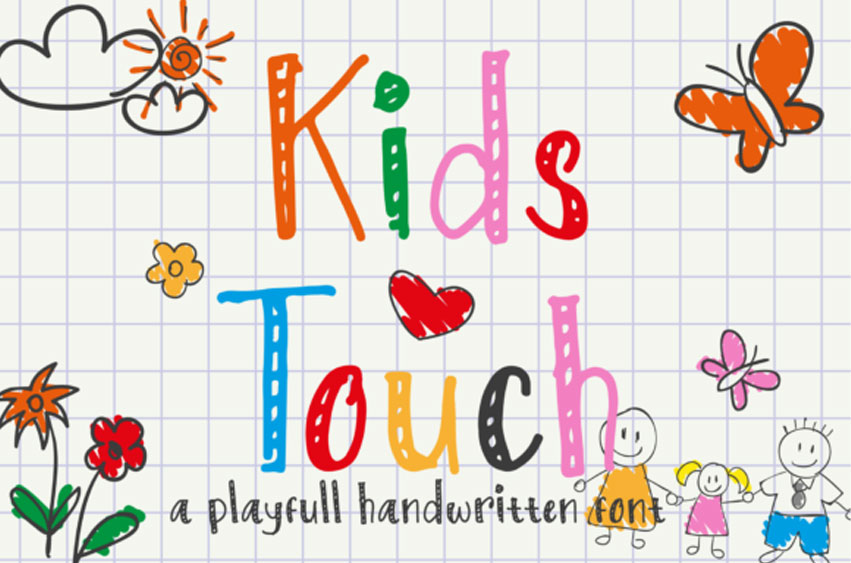
Kids Touch Font is a cute, playful and fun display font, that can be used for all chalkboard quotes or teaching material!
Its authentic look and feel will add a personal and realistic feel to your designs.